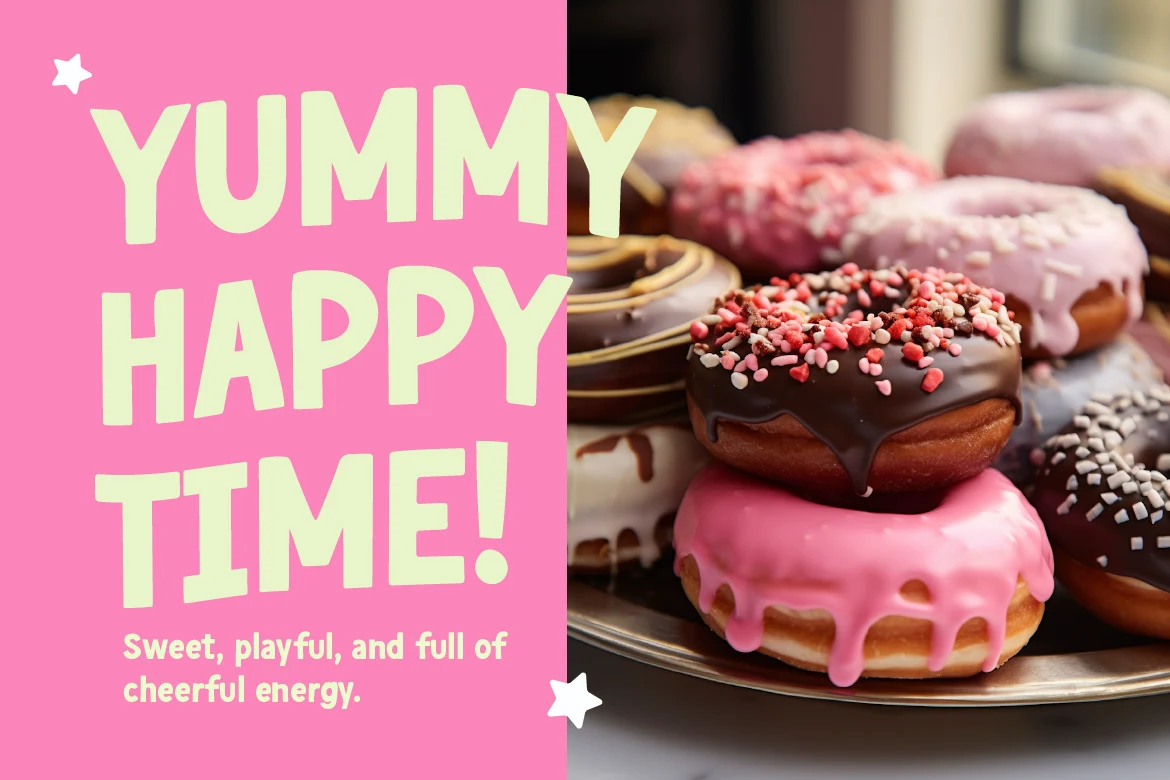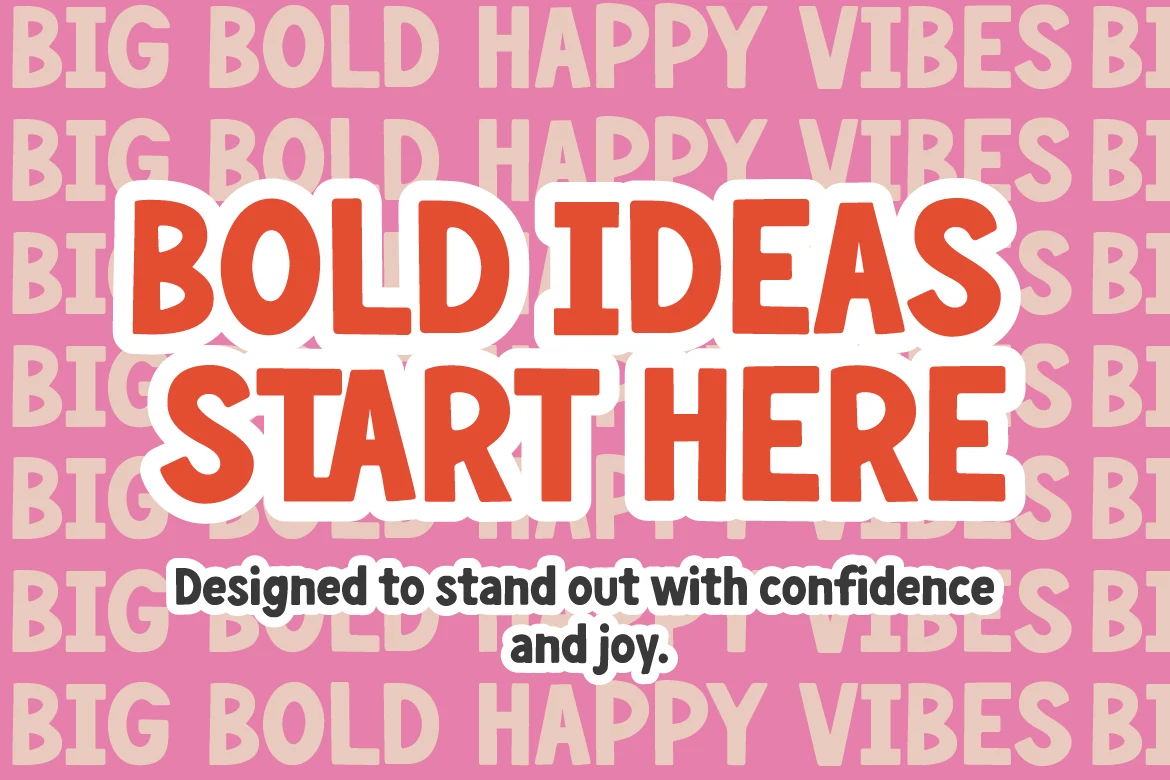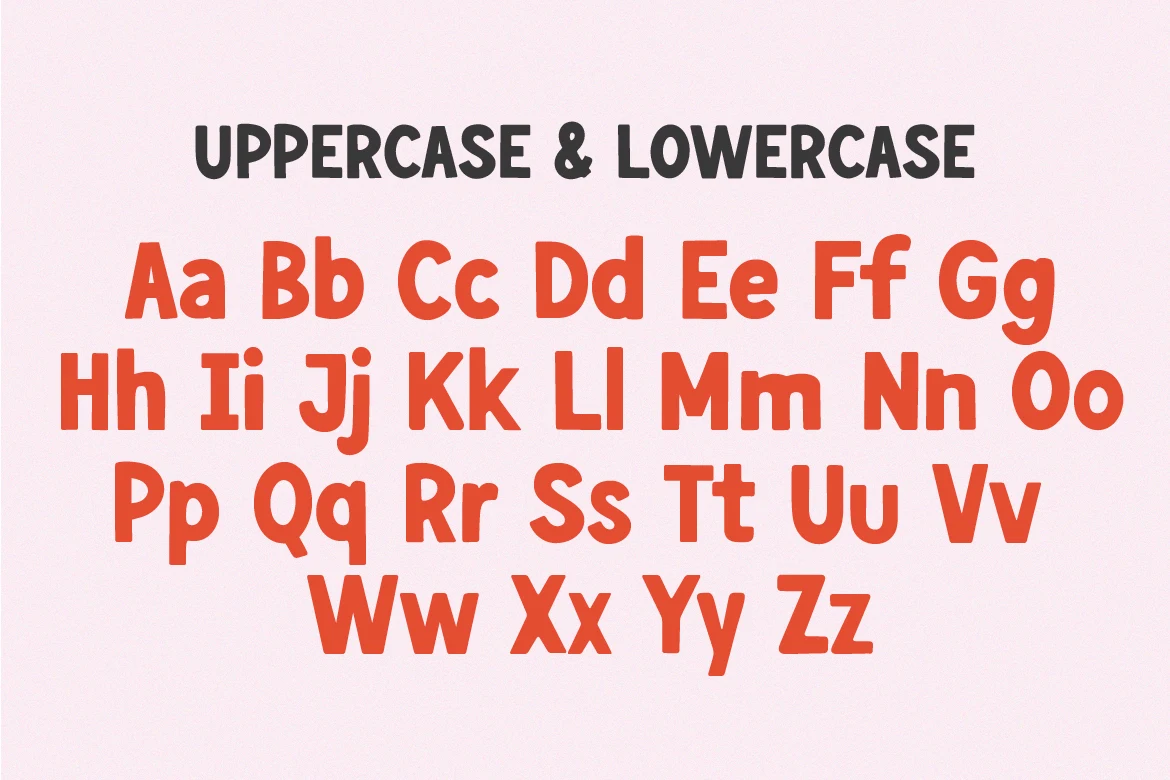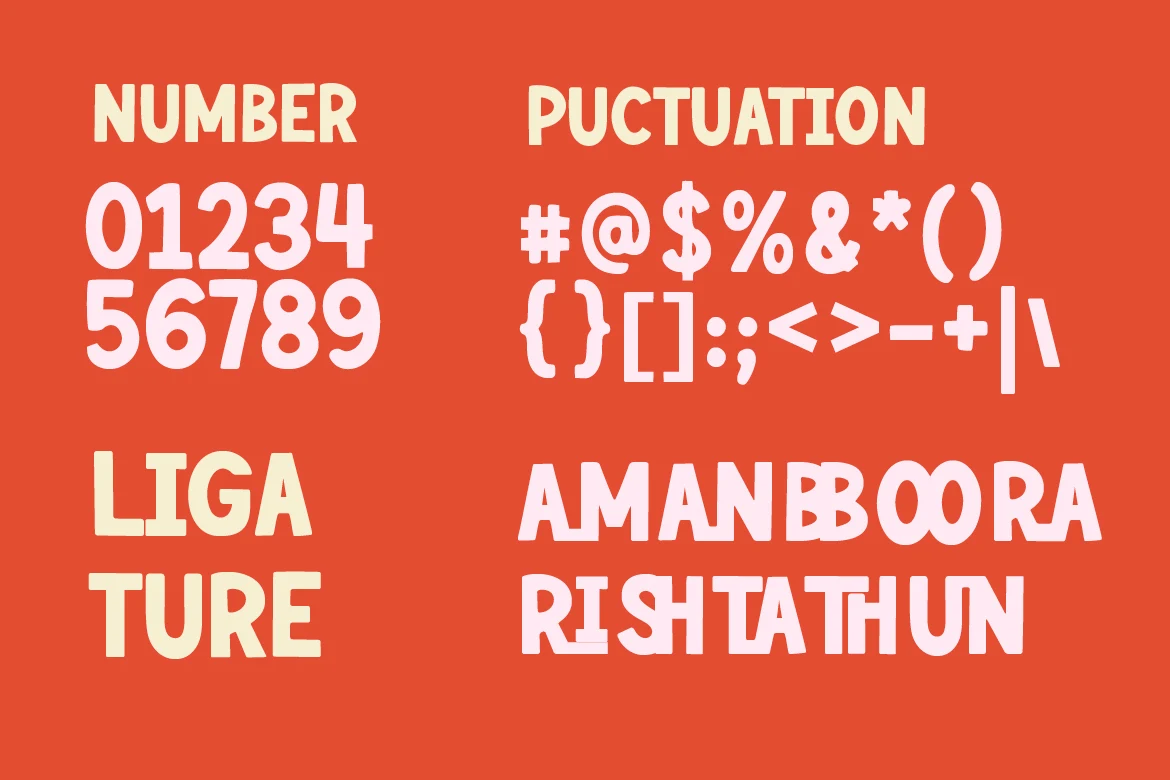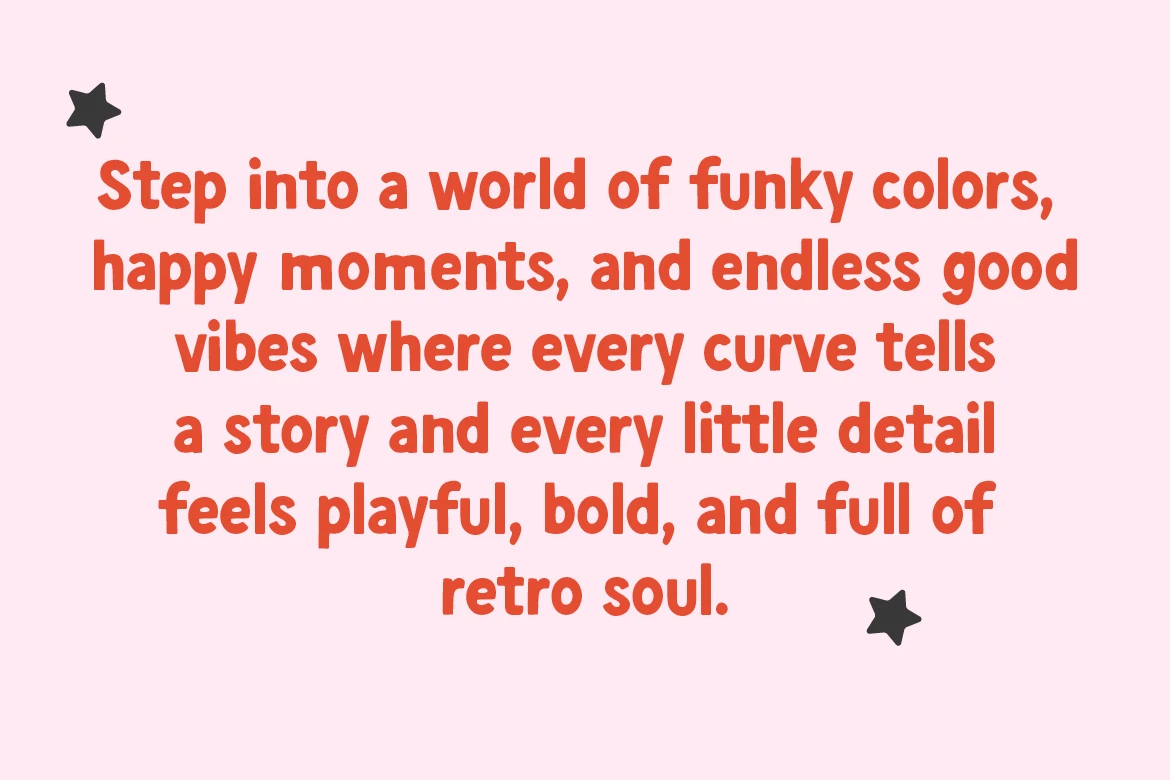
Brolly Mogu
Brolly Mogu is a chunky rounded handwritten font with friendly curves, bold shapes, and a warm retro mood. Its soft, playful letterforms bring personality to headlines without making the layout feel too busy.
The font is made for display use, especially when a project needs to feel cheerful, confident, and easy to recognize. It works well for playful logos, poster headlines, merch graphics, packaging, stickers, and kids-focused designs where clear lettering still needs a handmade touch.
Brolly Mogu also pairs comfortably with simple sans-serif text fonts, letting the headline carry the character while the rest of the design stays clean. Use it when you want typography that feels rounded, approachable, and a little groovy, without losing readability.